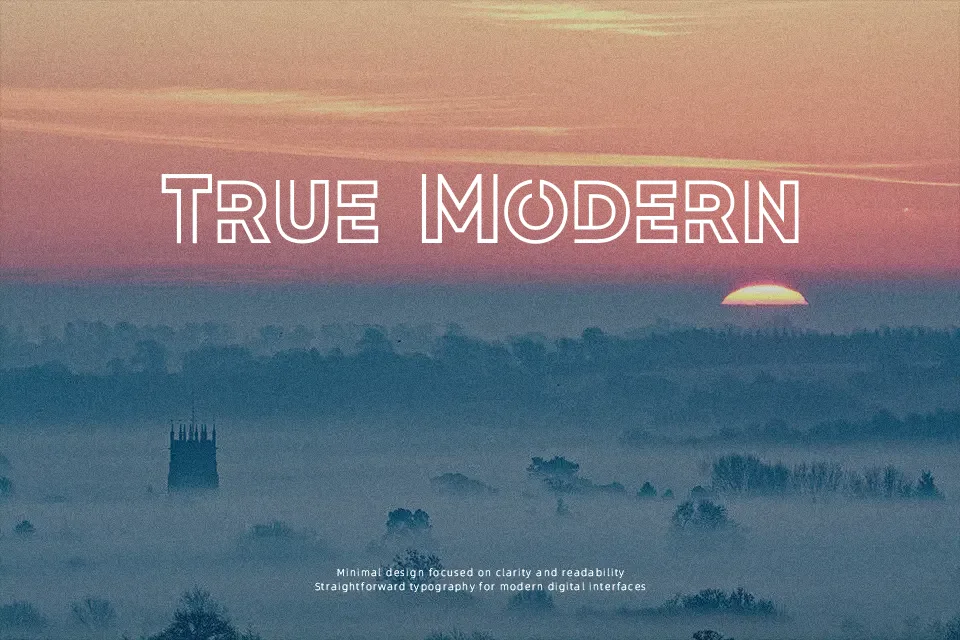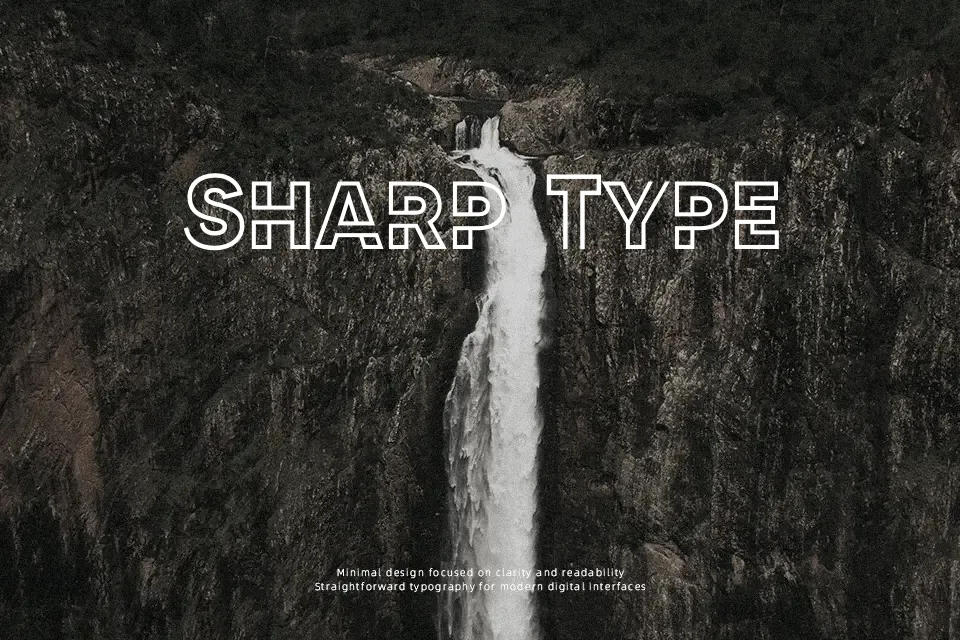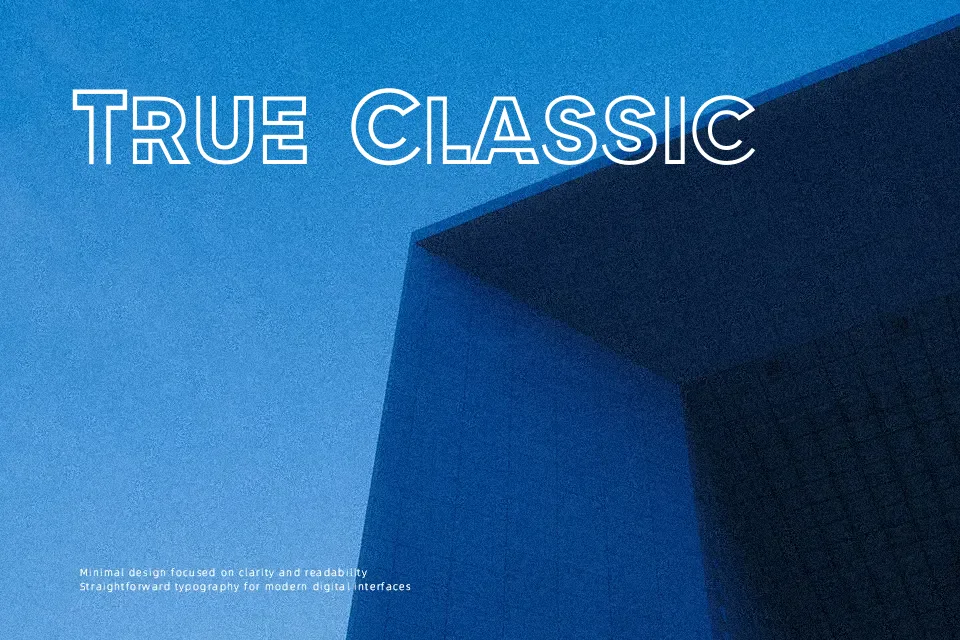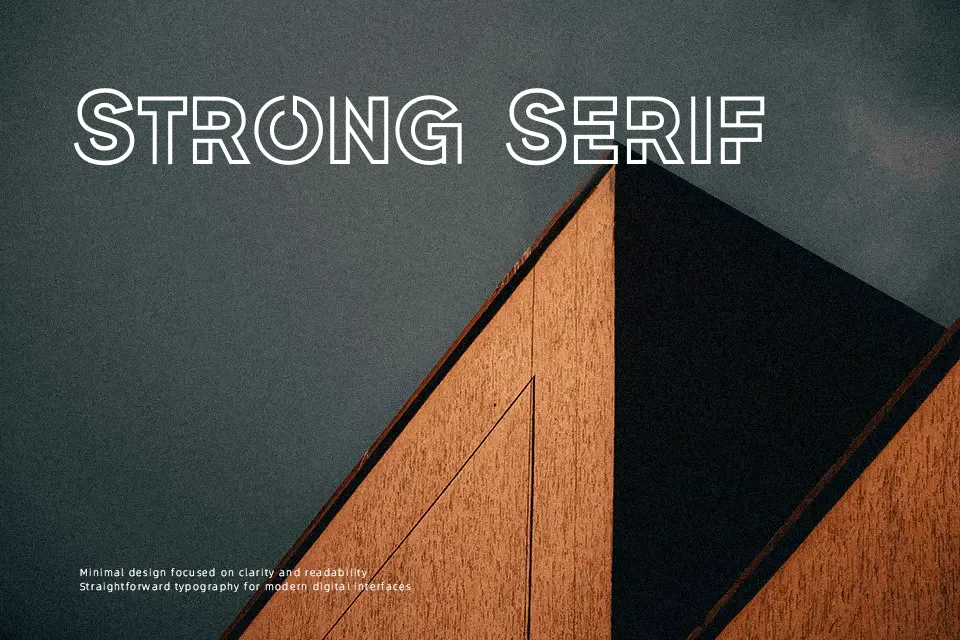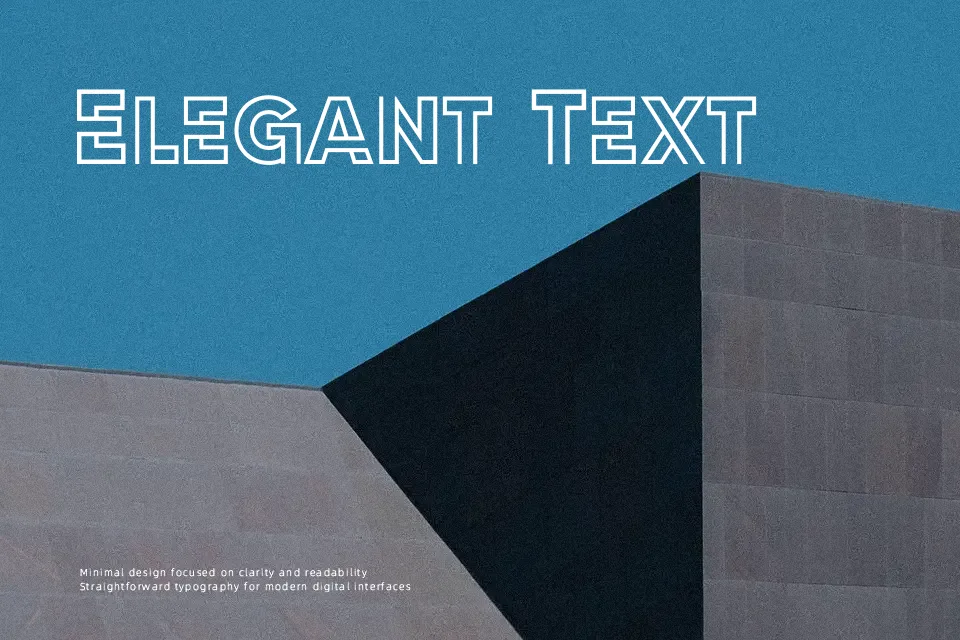
Neon Led Light Font
Designed by Qaratype2
Character shapes follow a continuous tube construction, with strokes that mimic bent neon tubing and create a strong linear flow across each word. Stroke weight appears even and moderately thick, which helps the glowing outline stay visible in larger headlines while still keeping letterforms distinct. Spacing feels relatively open, so characters do not crowd each other and the neon effect remains legible at display sizes. Corners transition smoothly around curves and bends, reinforcing the impression of real light tubing rather than sharp mechanical edges. It reads clearly in large titles and short phrases, but the decorative tube effect becomes visually tiring in long text blocks or at small sizes. Overall, it suits bold, illuminated headlines more than continuous reading.
nightclub or bar poster titles
event banners with neon themes
music or DJ flyer headlines
social media graphics that imitate neon signage
formal documents or reports
small interface labels or dense UI text
academic or technical manuals
Perfect for advertising, headline, and logo, with a artistic and decorative style.